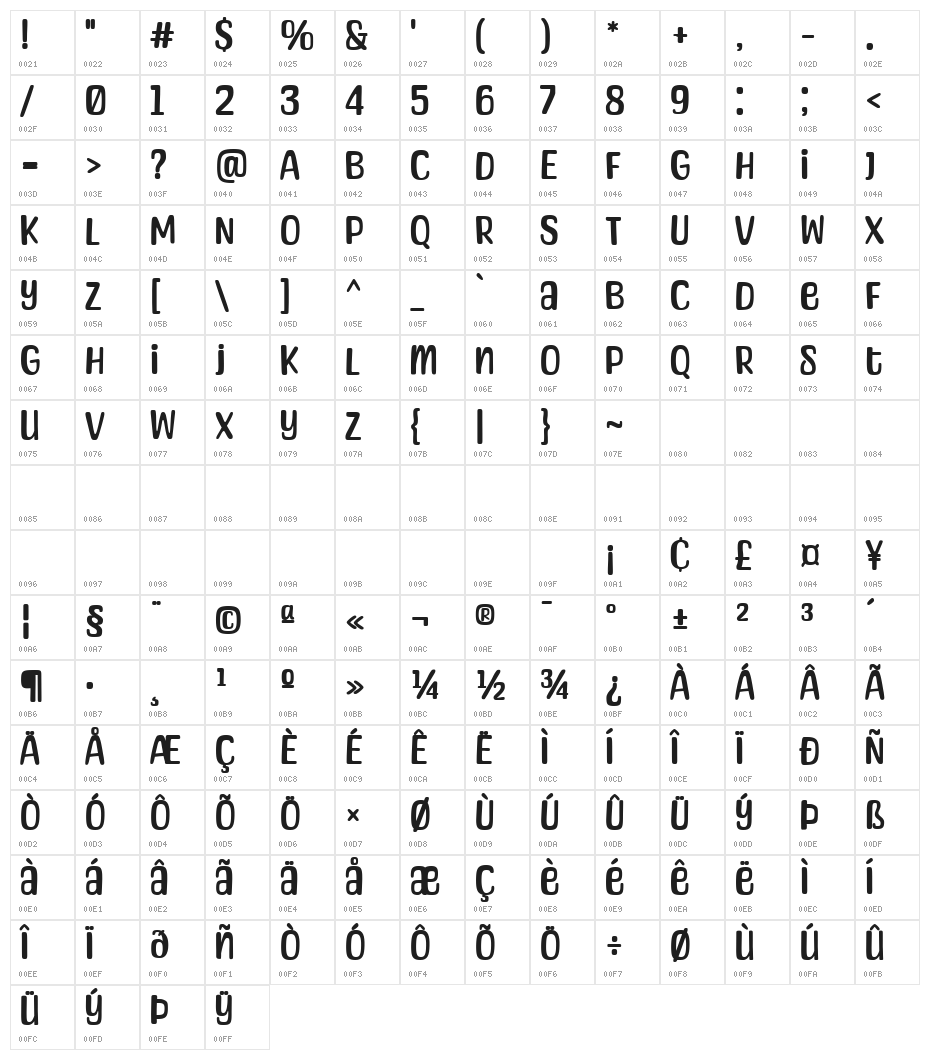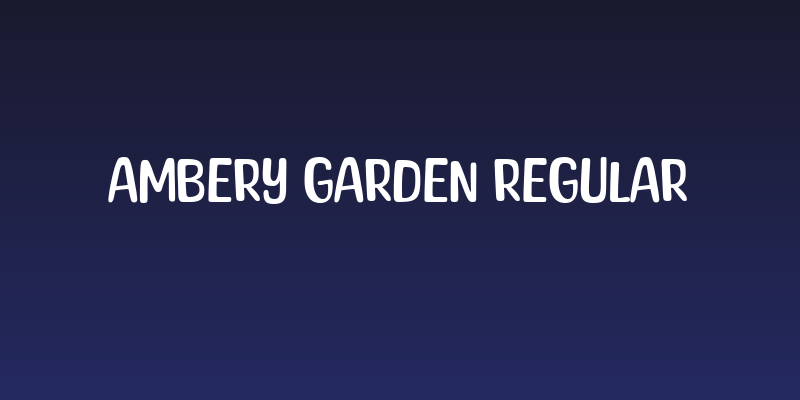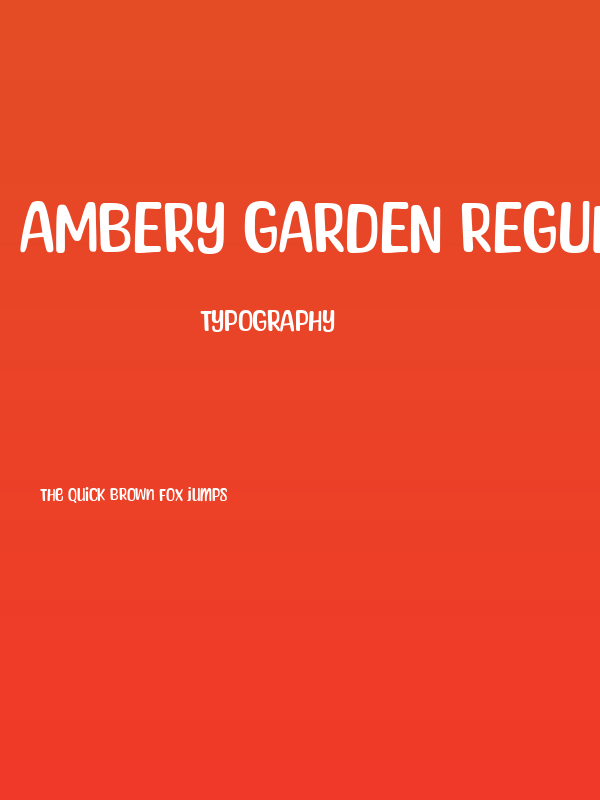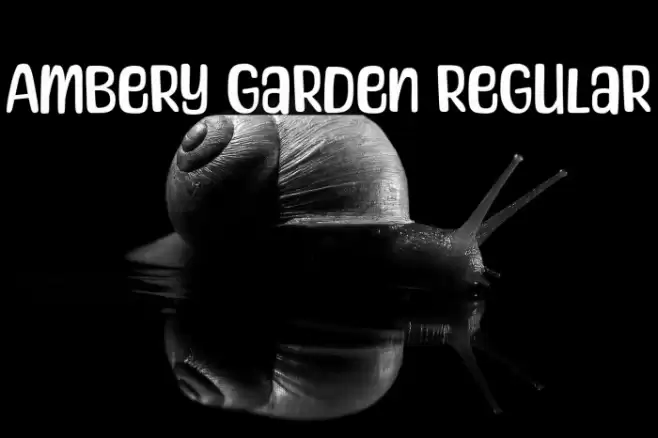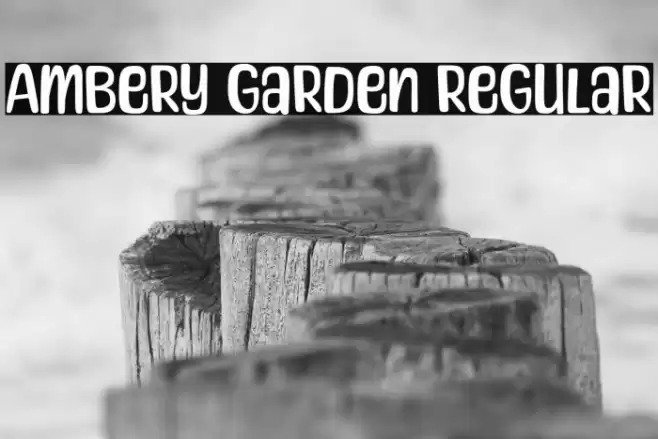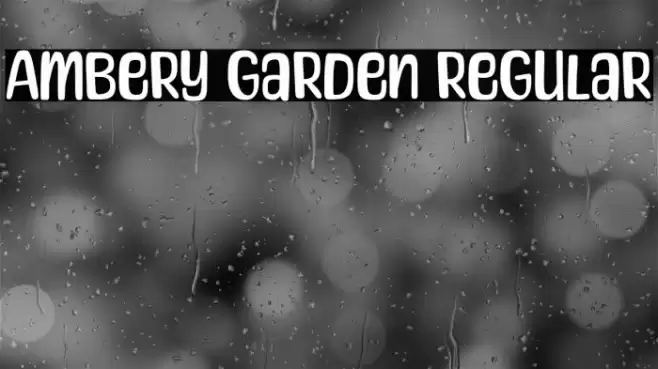
Ambery Garden Regular Font
Ambery Garden Regular Description
This font features a playful and rounded style with a hand-drawn appearance. The characters are bold and slightly condensed, giving a friendly and approachable feel. The uppercase and lowercase letters maintain a consistent stroke width, contributing to a harmonious look. The numerals and special characters are designed to match the overall aesthetic, ensuring uniformity across all elements. The font's smooth curves and lack of sharp edges make it suitable for projects that require a casual and inviting tone.
| Proposed Projects | Ideal for children's books, greeting cards, playful branding, and casual invitations. |